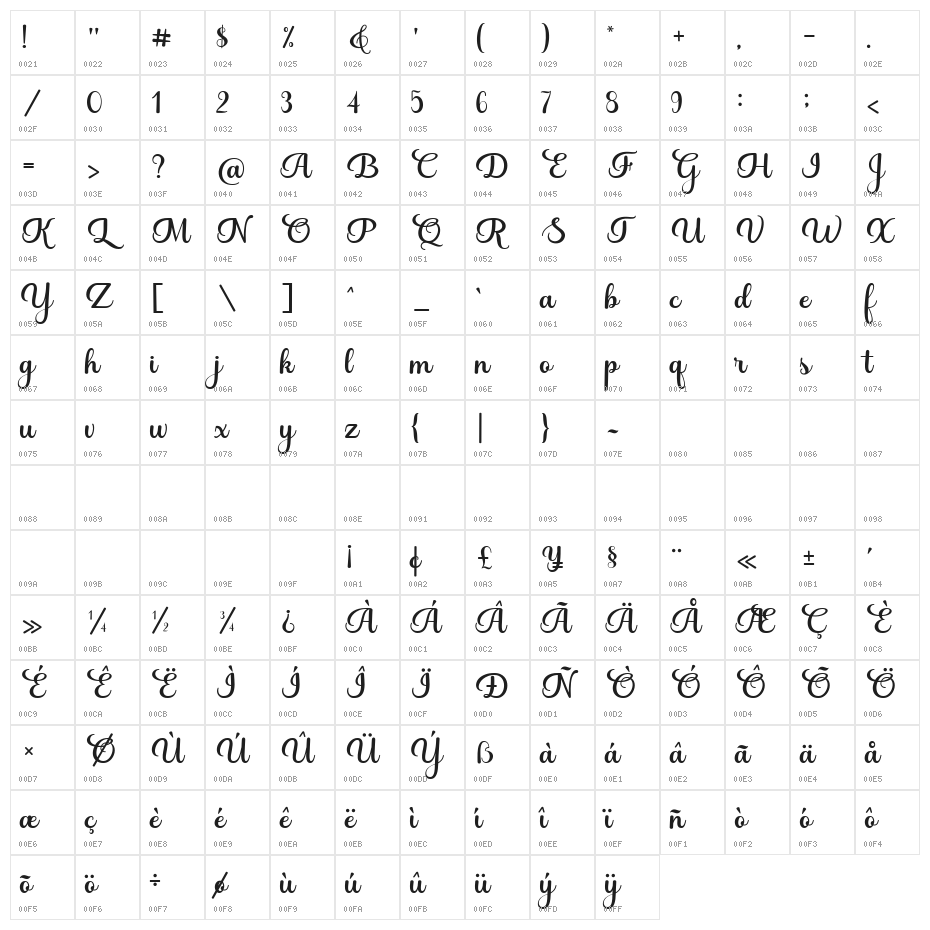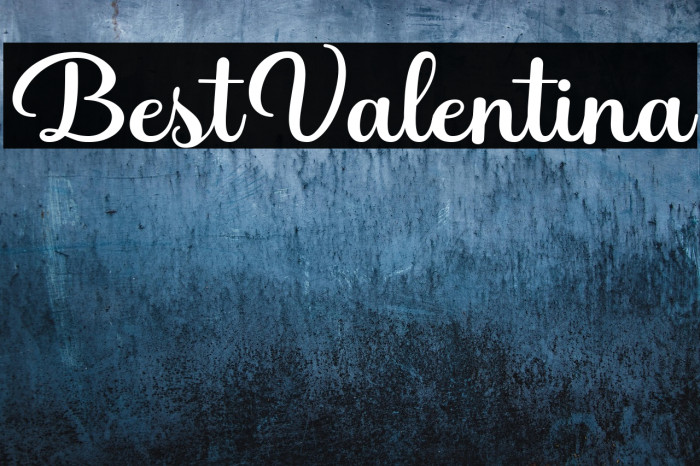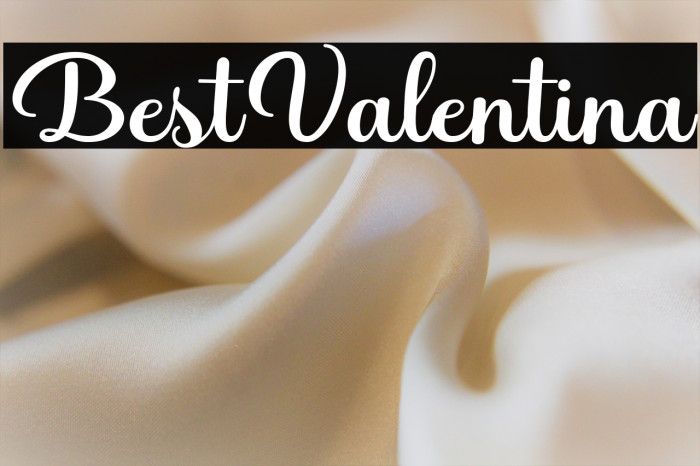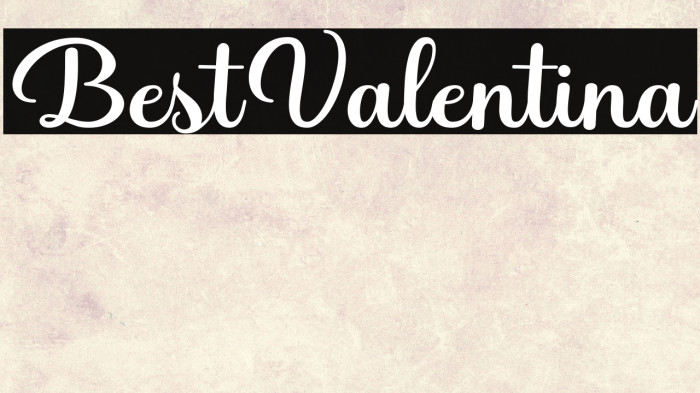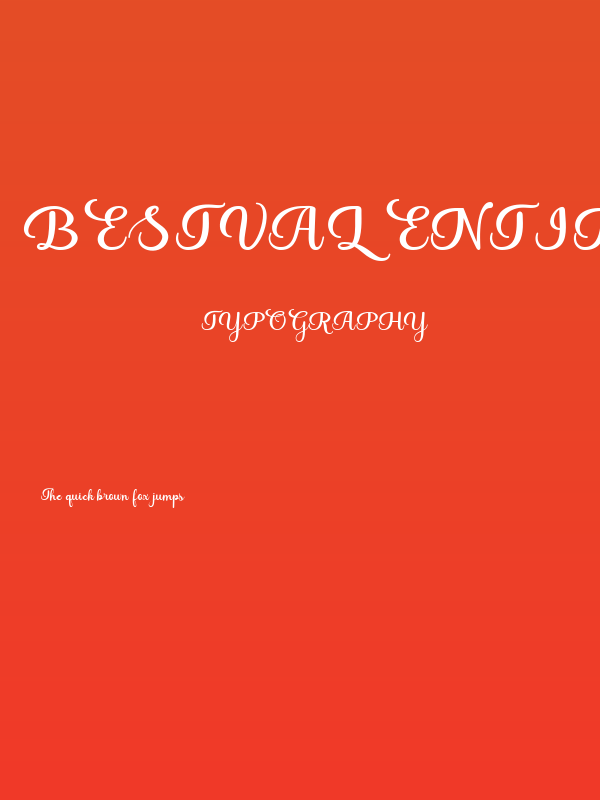
BestValentina Font
BestValentina Description
This elegant script font features flowing, cursive letters with a classic and sophisticated style. The uppercase letters are ornate with delicate loops and swirls, while the lowercase letters maintain a smooth and connected appearance. The numerals are stylish yet readable, complementing the overall aesthetic. Special characters are designed with the same attention to detail, adding to the font's versatility. This font exudes a sense of grace and refinement, making it ideal for formal and decorative uses.
Overall StyleClassic
Use CaseLogos, Invitations, Decorative text
Proposed ProjectsIdeal for wedding invitations, elegant branding, greeting cards, and decorative signage.